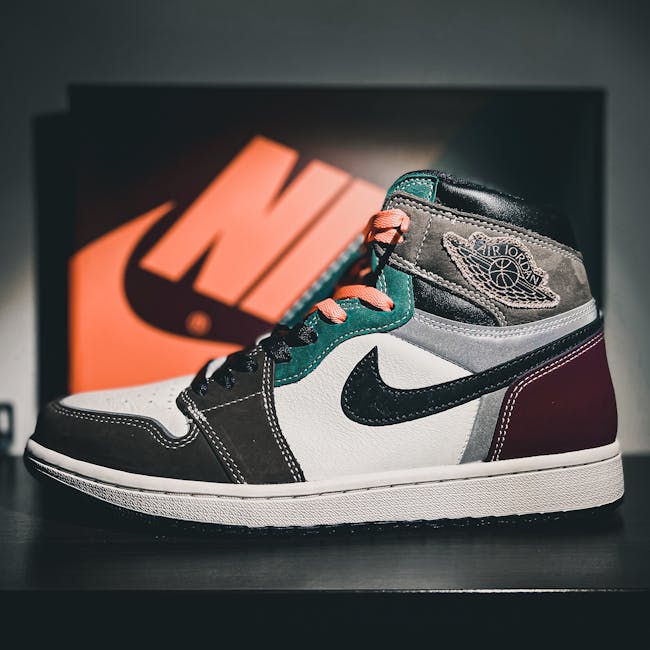
What is Nike Font?
In the world of branding, typography is like the secret sauce that gives a brand its unique flavor. We all know the iconic Nike swoosh, but have you ever stopped to consider the font that accompanies it? The Nike Font is more than just letters—it’s a key player in the brand’s storytelling, lending a bold and confident voice to everything Nike does.
History of Nike Font
Nike’s journey with typography began with a simple, yet profound idea: to convey speed, motion, and energy. The Nike Font has evolved over the years, reflecting the brand’s growth and adaptation to changing design trends.
The Creation of the Logo
The Nike logo, famously known as the “Swoosh,” was designed by Carolyn Davidson in 1971 for a mere $35. It was intended to symbolize motion and speed, akin to the wings of the Greek goddess Nike. The font that accompanies this logo, often Futura Bold, complements the simplicity and elegance of the swoosh, creating a harmonious blend of text and imagery. Learn more about the creation and evolution of the Nike logo here.
Font Evolution through the Decades
Throughout the years, the Nike Font has seen notable changes. In its early days, the font was more cursive and playful. As the brand matured, a switch to Futura Bold brought a more geometric and assertive look. This evolution mirrors Nike’s shift from a young, dynamic company to a global powerhouse. For a detailed look at the historical shifts in Nike’s design elements, explore this in-depth article.
Characteristics of Nike Font
The Nike Font is not just any typeface; it’s a carefully chosen design element that encapsulates the brand’s essence.
Typeface and Style
Nike primarily uses Futura, a sans-serif typeface designed by Paul Renner in 1927. Known for its clean, bold lines and geometric shapes, Futura matches Nike’s ethos of innovation and performance. The font’s lack of serifs gives it a modern feel, while its boldness conveys strength and resilience. Discover more about Futura and its use in branding.
Color Palette
Nike’s use of color in conjunction with its font is equally deliberate. The classic black and white palette provides a stark contrast that enhances readability and brand recognition. Occasionally, Nike introduces vibrant colors to tie in with specific campaigns or product lines, keeping the brand fresh and engaging. See how color influences branding at Marketing Purks.
Impact on Branding and Design
Typography is a fundamental part of Nike’s branding, playing a crucial role in its global recognition.
Brand Recognition
The consistency of the Nike Font across all brand materials—whether it’s a billboard, an app, or a sneaker—fortifies its brand identity. This familiarity breeds trust, making Nike instantly recognizable around the world.
Case Studies of Successful Campaigns
Nike’s “Just Do It” campaign is a prime example of typography’s power. The bold, uppercase lettering, paired with the swoosh, became a symbol of inspiration and determination. This campaign didn’t just sell shoes; it sold a mentality, proving that a font can indeed change the game. For more insights on successful Nike campaigns, check out this article.
Using Nike Font in Design
For designers, the Nike Font serves as a beacon of inspiration, demonstrating the impact of thoughtful typography.
Inspiration for Designers
When incorporating elements of the Nike Font into design projects, consider its harmony of boldness and simplicity. Whether you’re designing a new logo or a motivational poster, the key is to channel the same clarity and strength. Designers often look to platforms like Behance for inspiration, where creative interpretations of the Nike Font abound. Explore Nike Font projects on Behance.
Legal Considerations
While the Nike Font is inspirational, it’s important to navigate its use carefully. As with any proprietary branding element, there are copyright and trademark considerations to be aware of. Unauthorized use could lead to legal ramifications, so always ensure you have the right permissions or are using alternative free fonts for personal projects.
The Nike Font is not just a set of letters; it’s a dynamic component that tells a story of innovation, power, and global recognition. It illustrates how typography can shape perceptions and build an enduring brand identity. As you embark on your own design projects, consider the profound impact that typeface choice can have. After all, in the world of design, every letter counts.